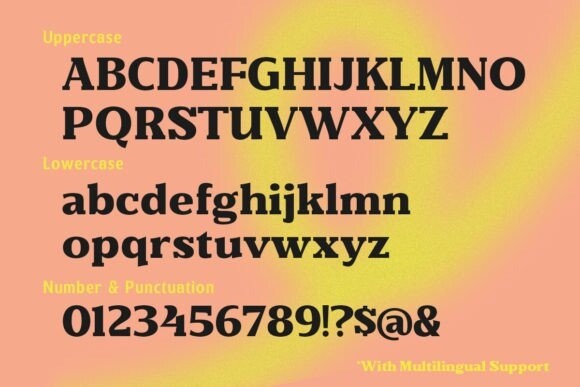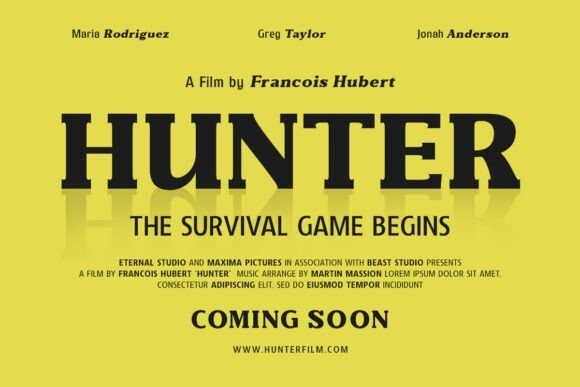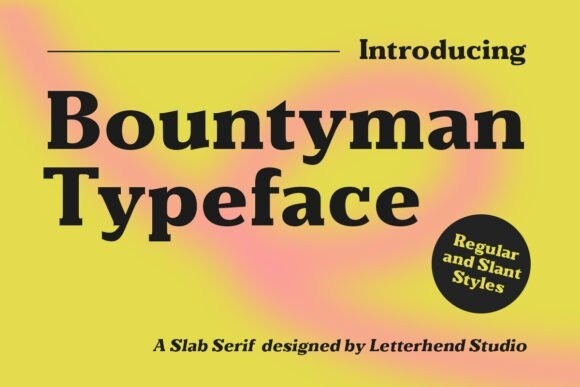
Bountyman Font
Bountyman Font is a slab serif typeface with slant version. Perfectly to be applied to the other various formal forms such as invitations, labels, logos, magazines, books, greeting / wedding cards, packaging, fashion, make up, stationery, novels, labels or any type of advertising purpose.